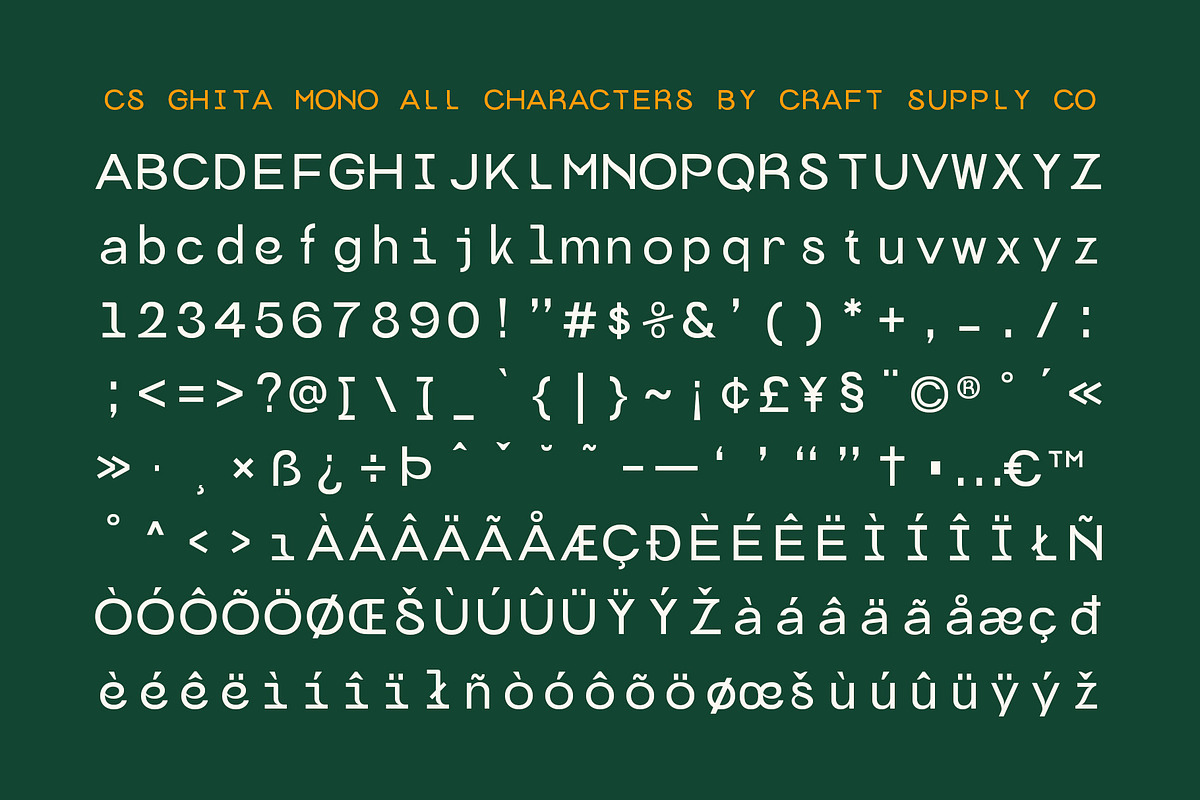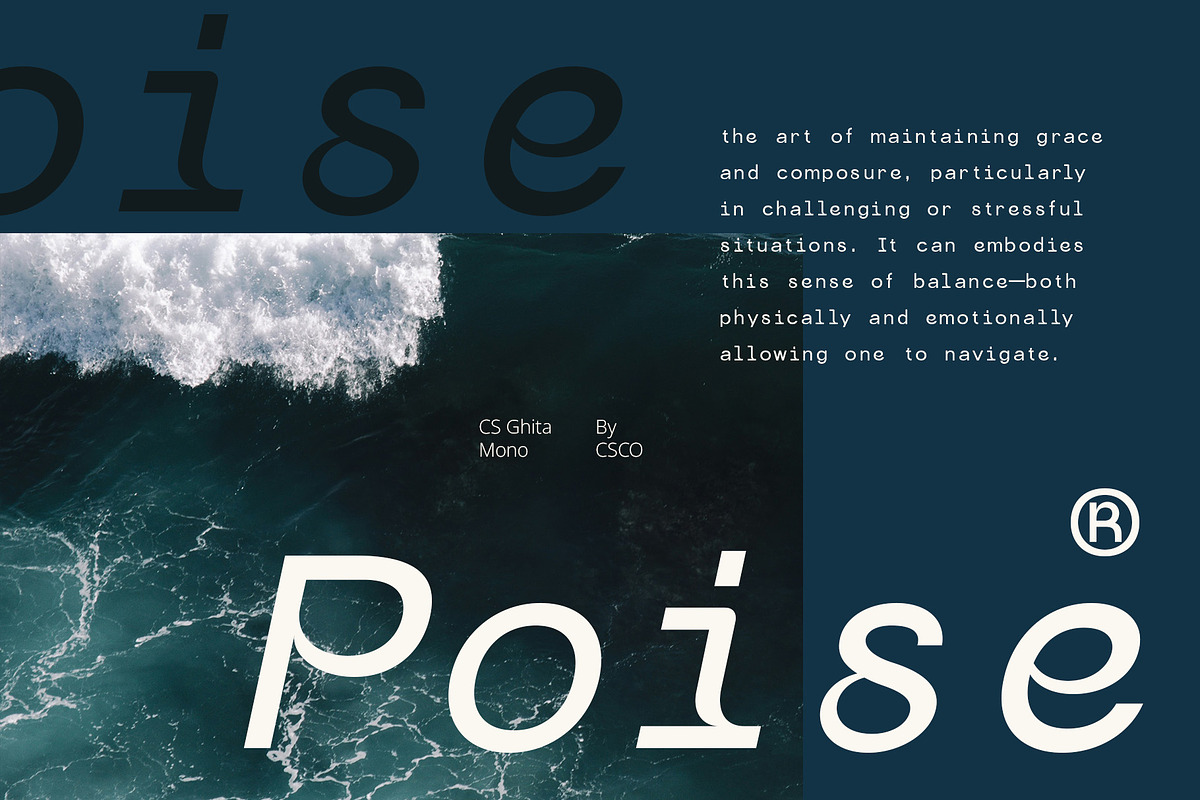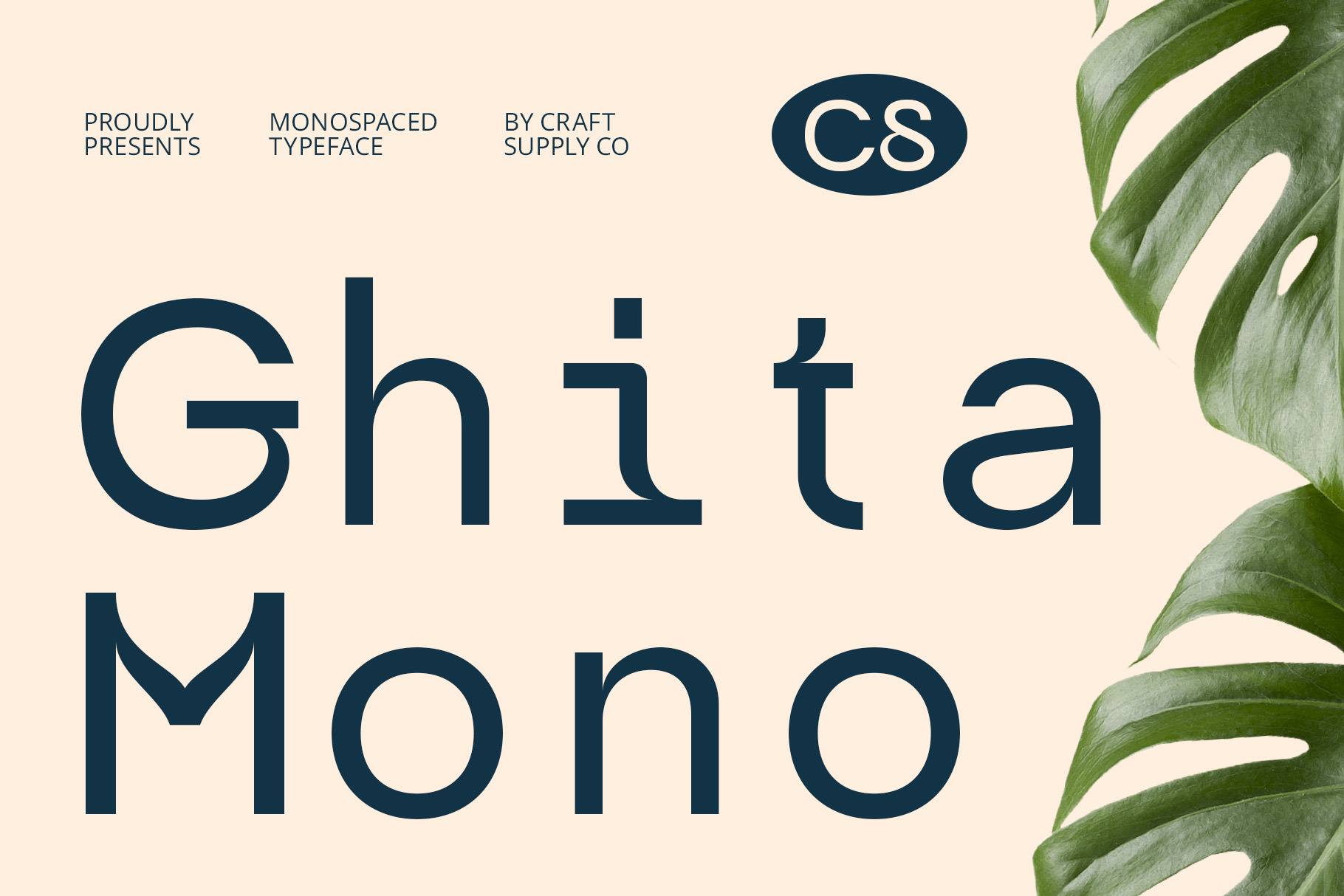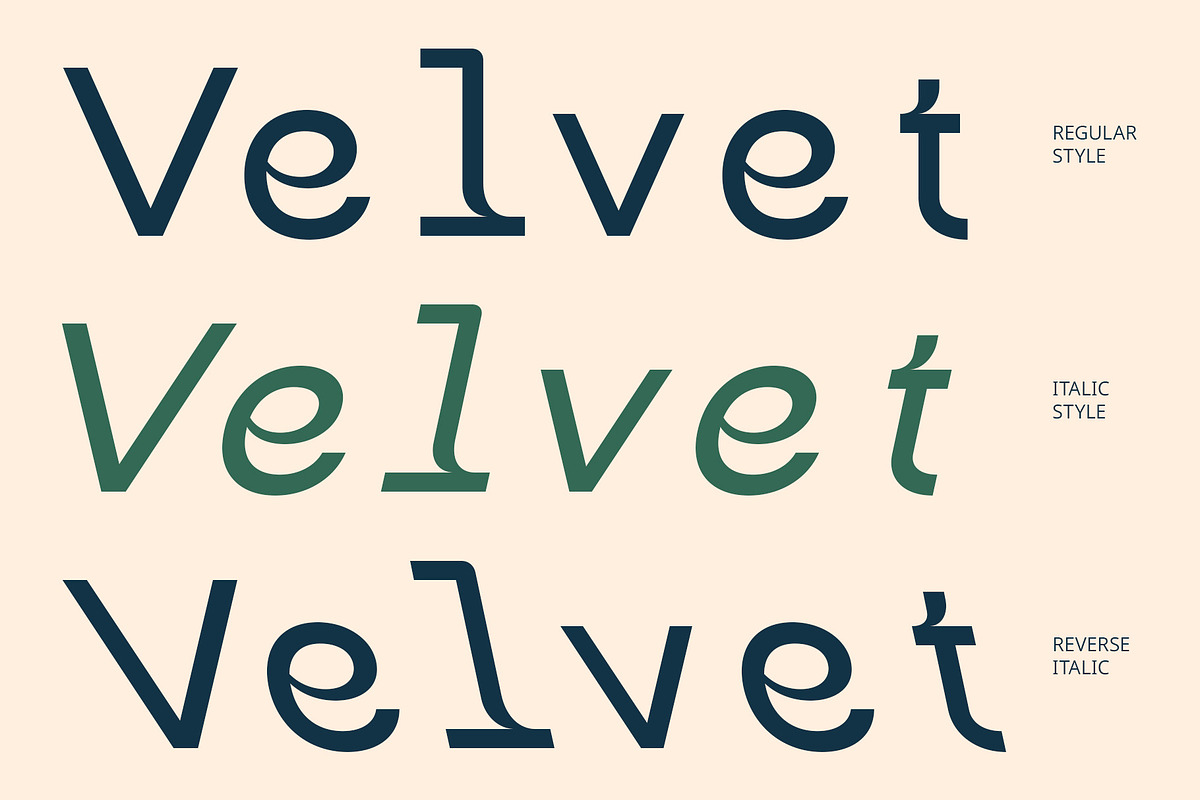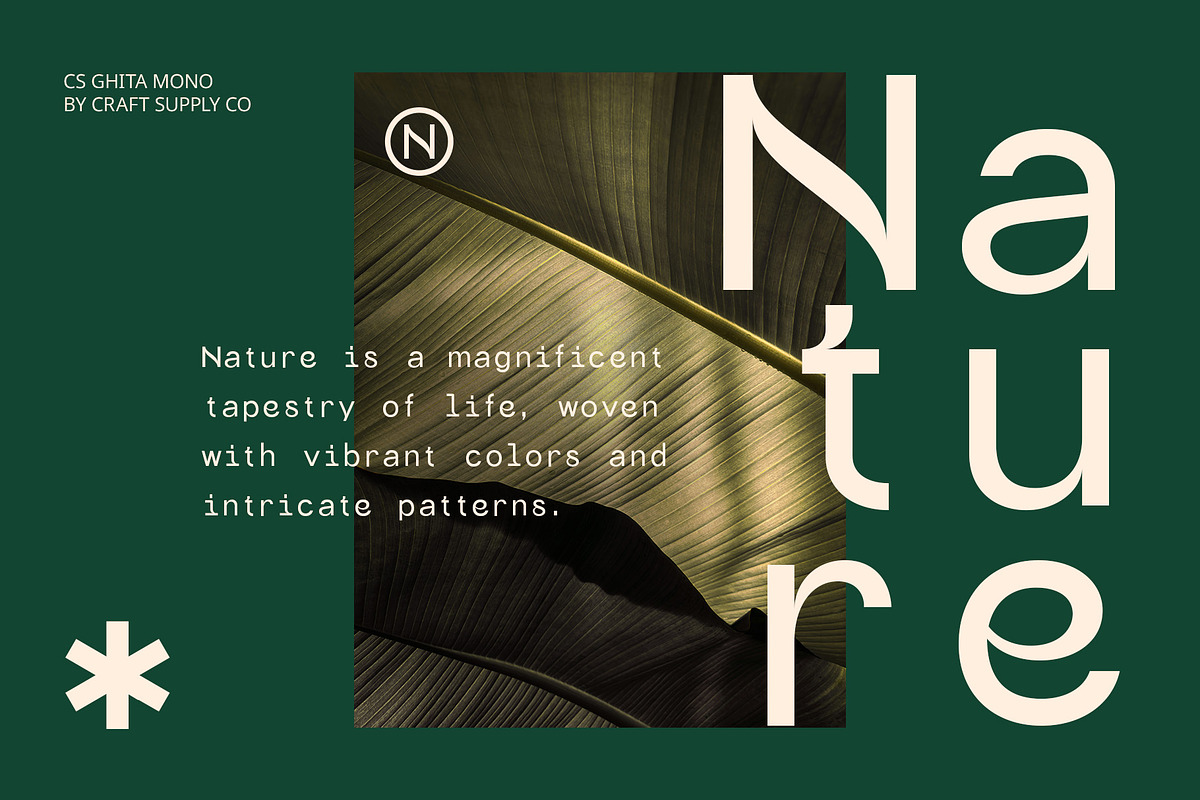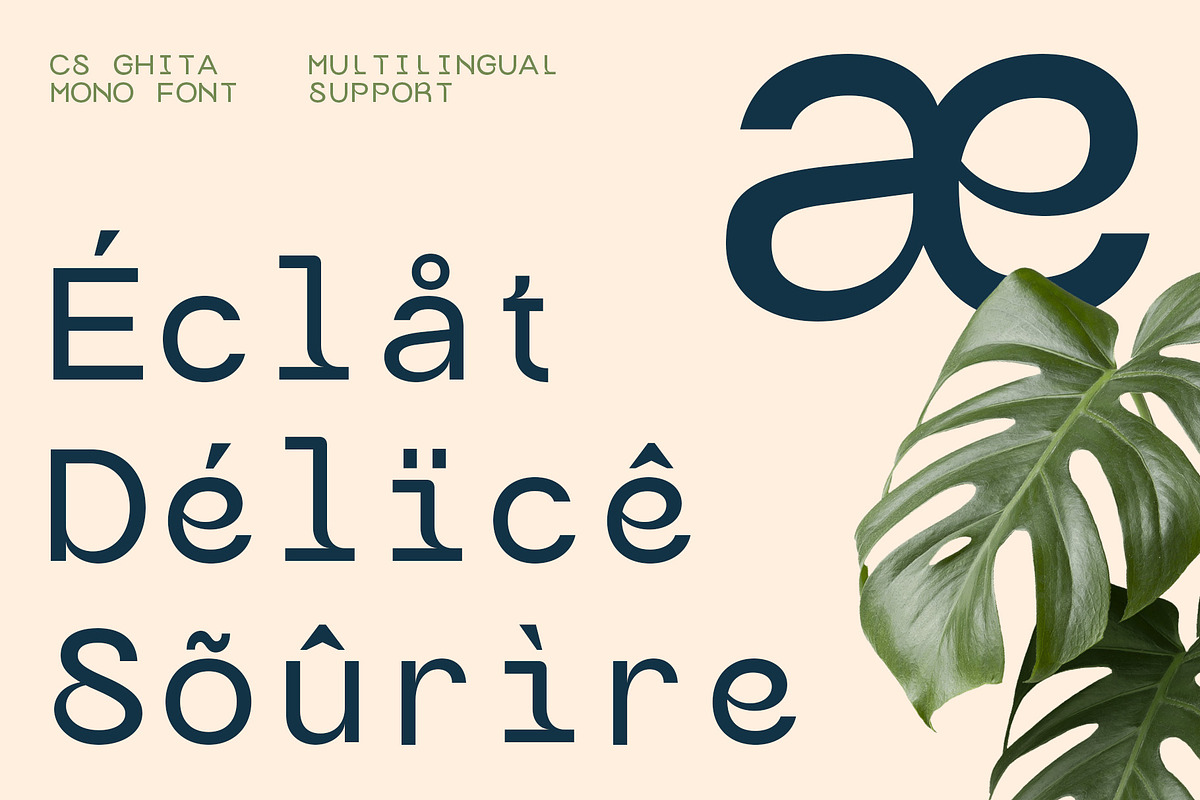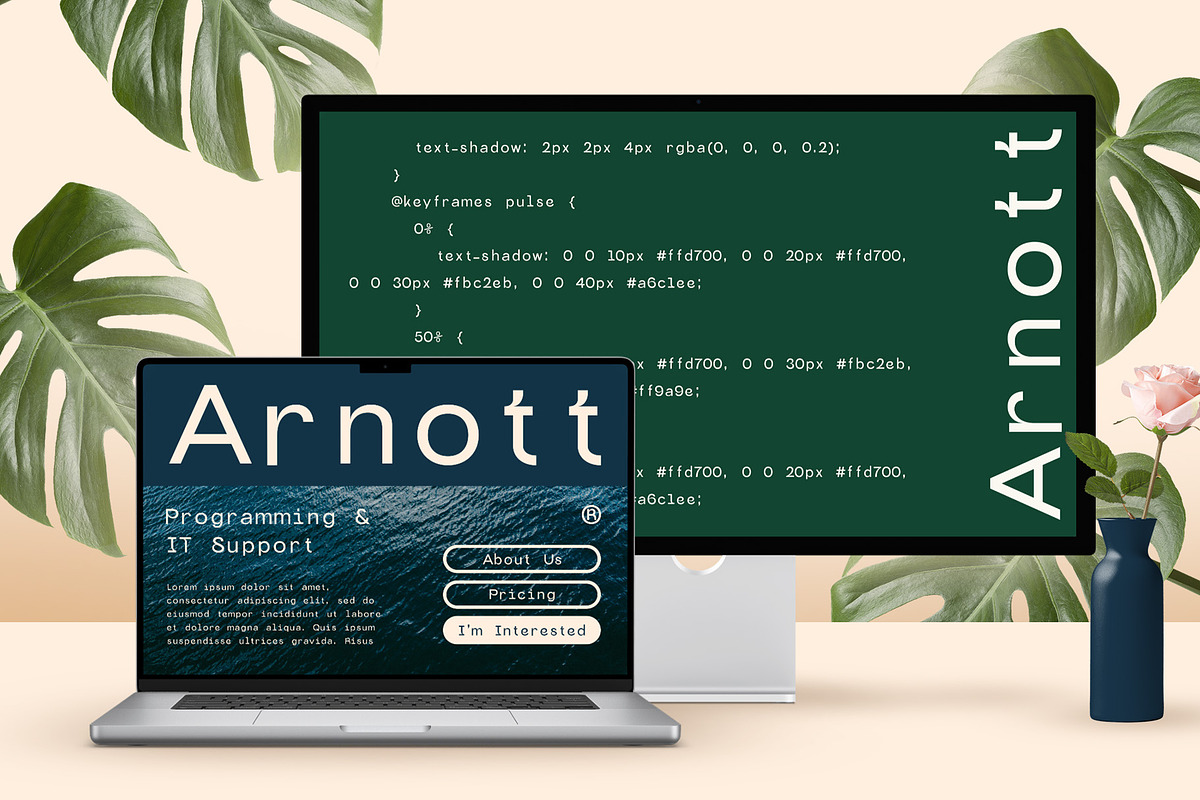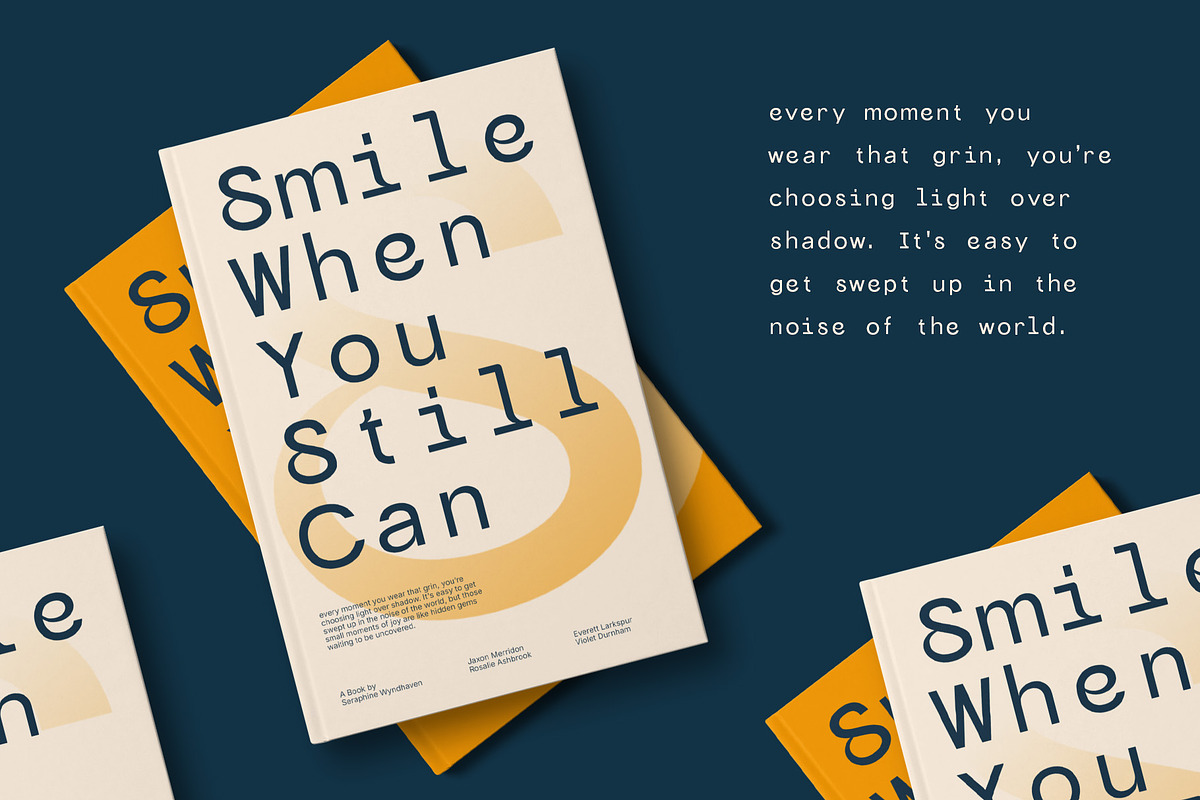
CS Ghita Mono – Monospaced Font
CS Ghita Monospaced Font: Elegant Monospaced Sophistication
Modern Monospaced Sans Serif Font CS Ghita Mono is a contemporary sans serif font that exemplifies elegance through its sleek and orderly monospaced design. Each character is crafted to occupy the same width, resulting in a visually harmonious layout that enhances readability and structure. This meticulous attention to detail makes it particularly appealing for various applications, where clarity and organization are paramount.
Clean Lines and Minimalist Aesthetic The font features smooth, minimalist lines that lend a modern feel, seamlessly blending functionality with style. Its contemporary design ensures that it can adapt to a variety of settings, whether in programming environments or creative branding efforts. The balanced proportions and straightforward shapes contribute to a professional appearance, making this font a versatile choice for designers and developers alike.
Versatile Applications Across Industries Ideal for programming, this monospaced font ensures high readability and uniformity, allowing users to follow code structures with ease. Beyond technical use, this font’s elegance makes it suitable for branding projects, official documents, and presentations. Its ability to maintain a clean and polished look means it can convey important information effectively while still appearing stylish and refined.